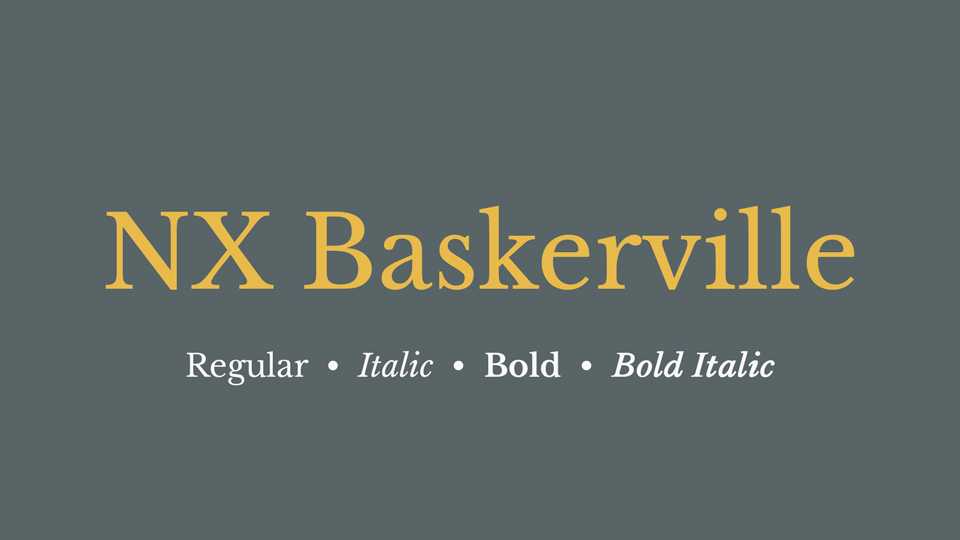
NX Baskerville Font Family › Fontesk – Download Grátis
Download NX Baskerville typeface, a serif font family in two weights and Italics based on Libre Baskerville. It adds a Bold Italic style and makes some other minor tweaks.
Designer: Daniel Benjamin Miller